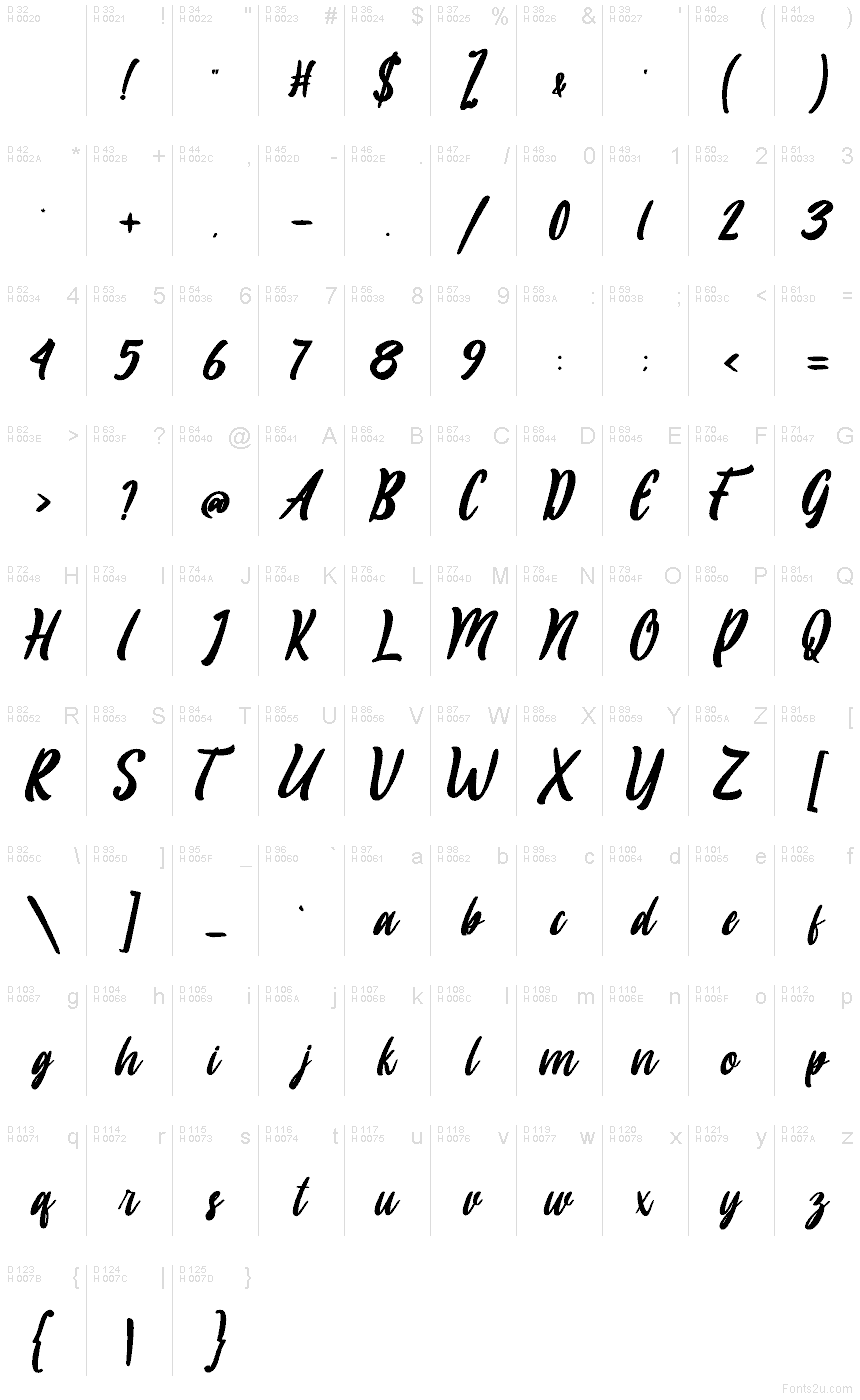
Frikaya
Frikaya font by Skiiller Studio is a modern calligraphy font with a unique style. The condensed letters display exquisite curves and bold details mixed with an artistic touch that evokes waves and water elements. With playful edges wrapped in elegant designs, this friendly handwritten font will help you create an expressive casual aesthetic for your contemporary applications.
Here, consistency is the key which allows it to be used for logos and branding designs, packaging projects, business cards, posters, websites, typography artwork, and plenty of other creative availability fields. This free calligraphy font can even decorate apparel items’ designs to appear vivid on t-shirts for everyday wear or jackets for special celebrations!